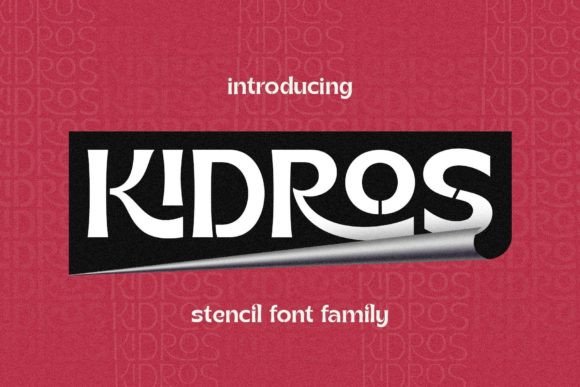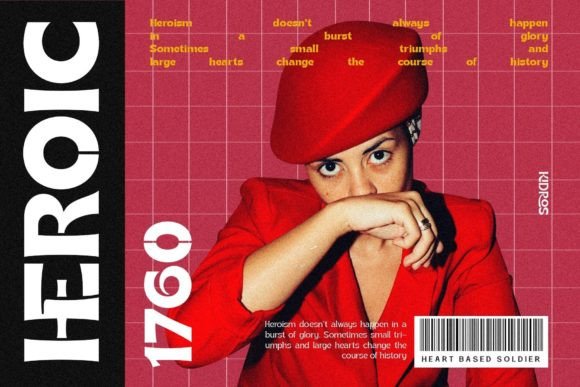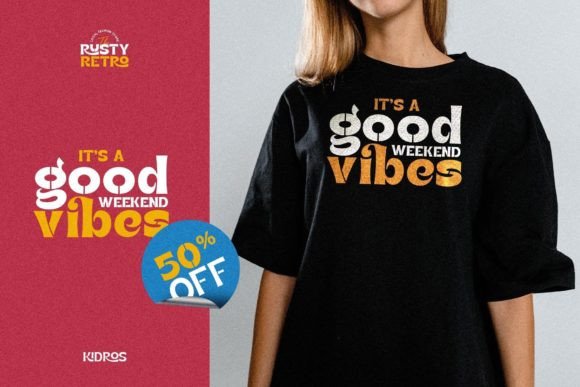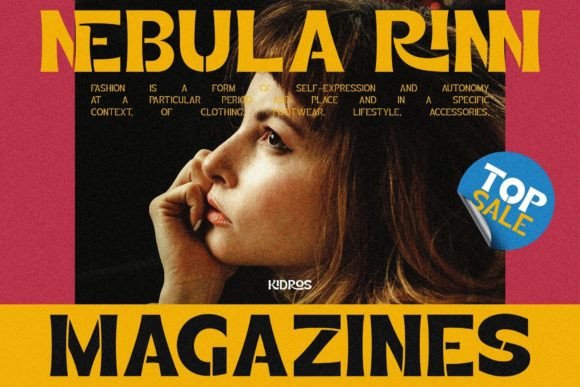
Kidros Font: Retro Stencil Display Font for Creative DIY & Logo Design
About the Kidros Font
We are excited to introduce Kidros Font, a must-have typeface for any serious designer. Kidros is designed with a sans serif font concept that has a retro display stencil style. With irregular dynamic shapes and a vintage vibe, this font has the potential to enhance any creation.
Kidros excels in headline applications, short impactful statements, posters, and branding projects requiring a bold, retro aesthetic. Its strong, irregular shapes make it unsuitable for body text or longform content; readability suffers at smaller sizes. Avoid using it in UI design or situations demanding high legibility.
The font’s personality is confident and playful, yet undeniably vintage. It works well for brands aiming for a retro-inspired, slightly rebellious image – think vintage clothing stores, craft breweries, or independent music labels.
Pairing Kidros with a clean sans-serif like Open Sans for body text or a more refined serif like Merriweather for supporting text provides excellent contrast and balance. For a bolder, more cohesive vintage feel, consider pairing it with a geometric sans-serif such as Futura.